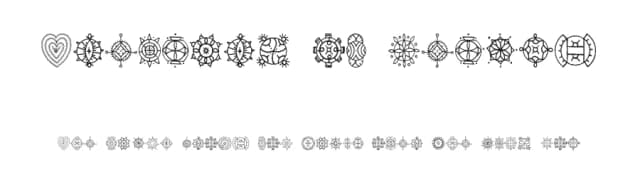
About Extra Ornamental Font
Extra Ornamental is a decorative font designed by House of Lime. It includes 41 glyphs, a regular weight, and TTF (TrueType) format. Extra Ornamental is free to download; check the license details on this page before commercial use. Decorative fonts like Extra Ornamental work best for logos, posters, packaging, and standout headlines.
Extra Ornamental Font is a decorative font that shines as a display or heading face. Pair it with a clean sans-serif or serif font for body text β the contrast creates a clear hierarchy while the two styles stay balanced and easy to read.
Extra Ornamental Font
Extra Ornamental Font is a decorative typeface by House of Lime, ideal for logos, invitations, branding, and creative projects.